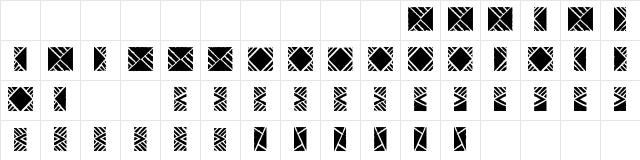
Stoned Regular Free Font
Stoned Regular
Design Context for Stoned
Stoned is a composed and adaptable typeface that performs quietly and consistently across a wide range of design contexts.